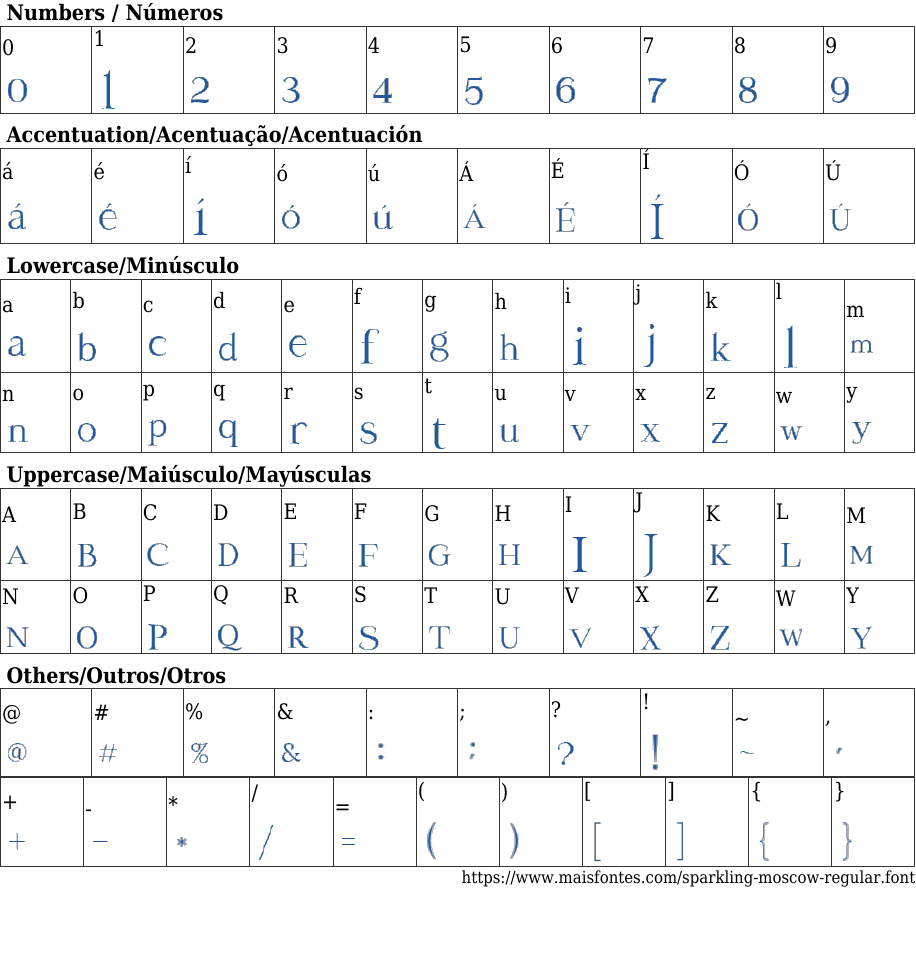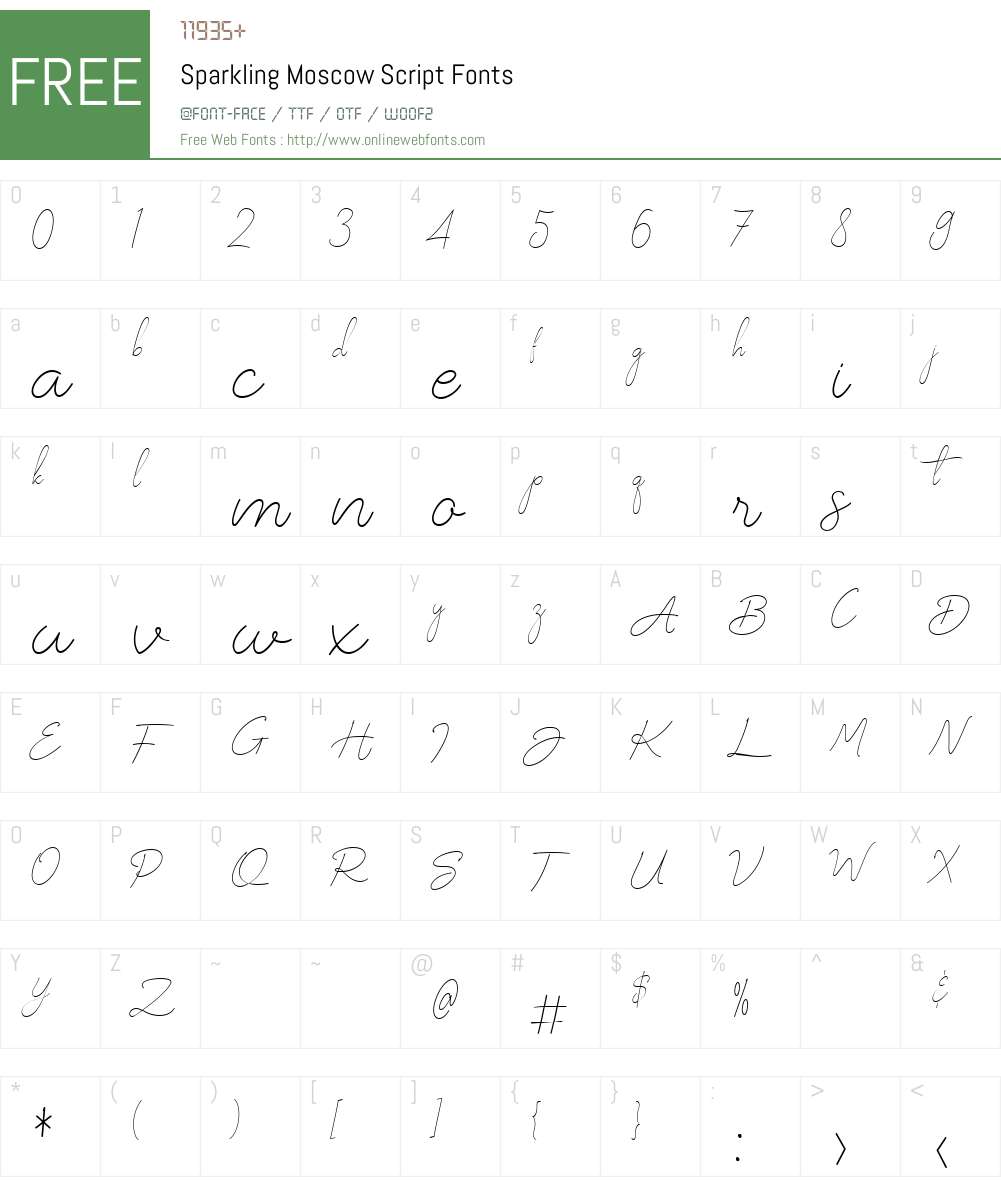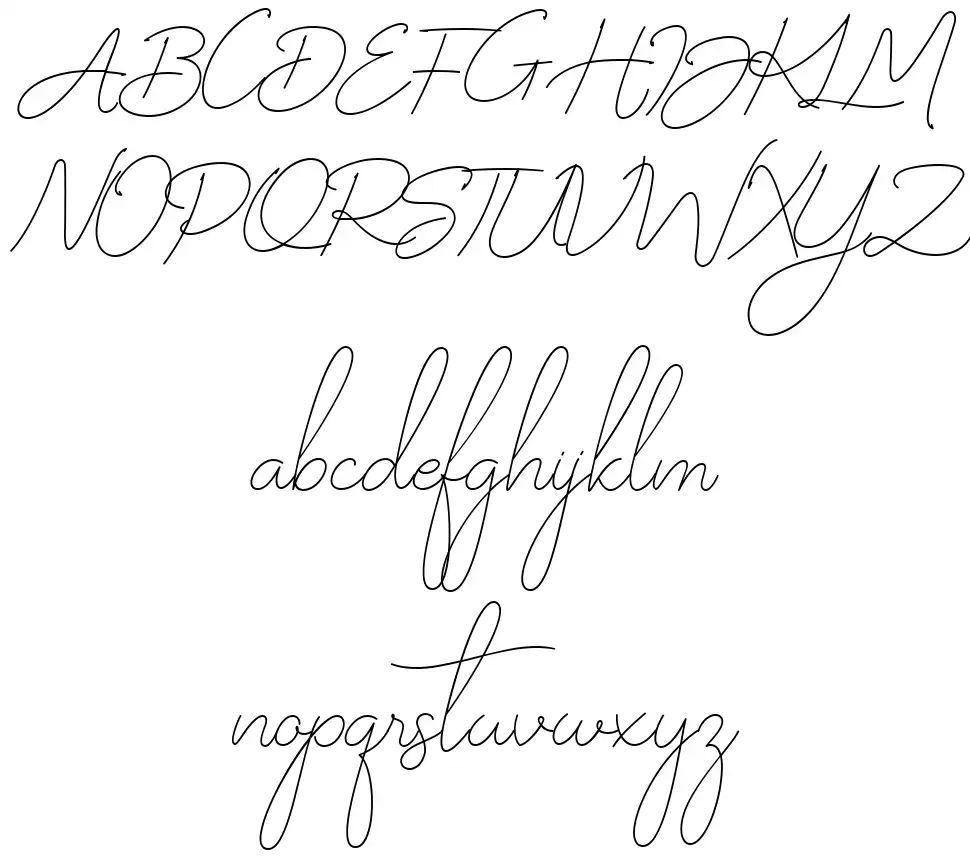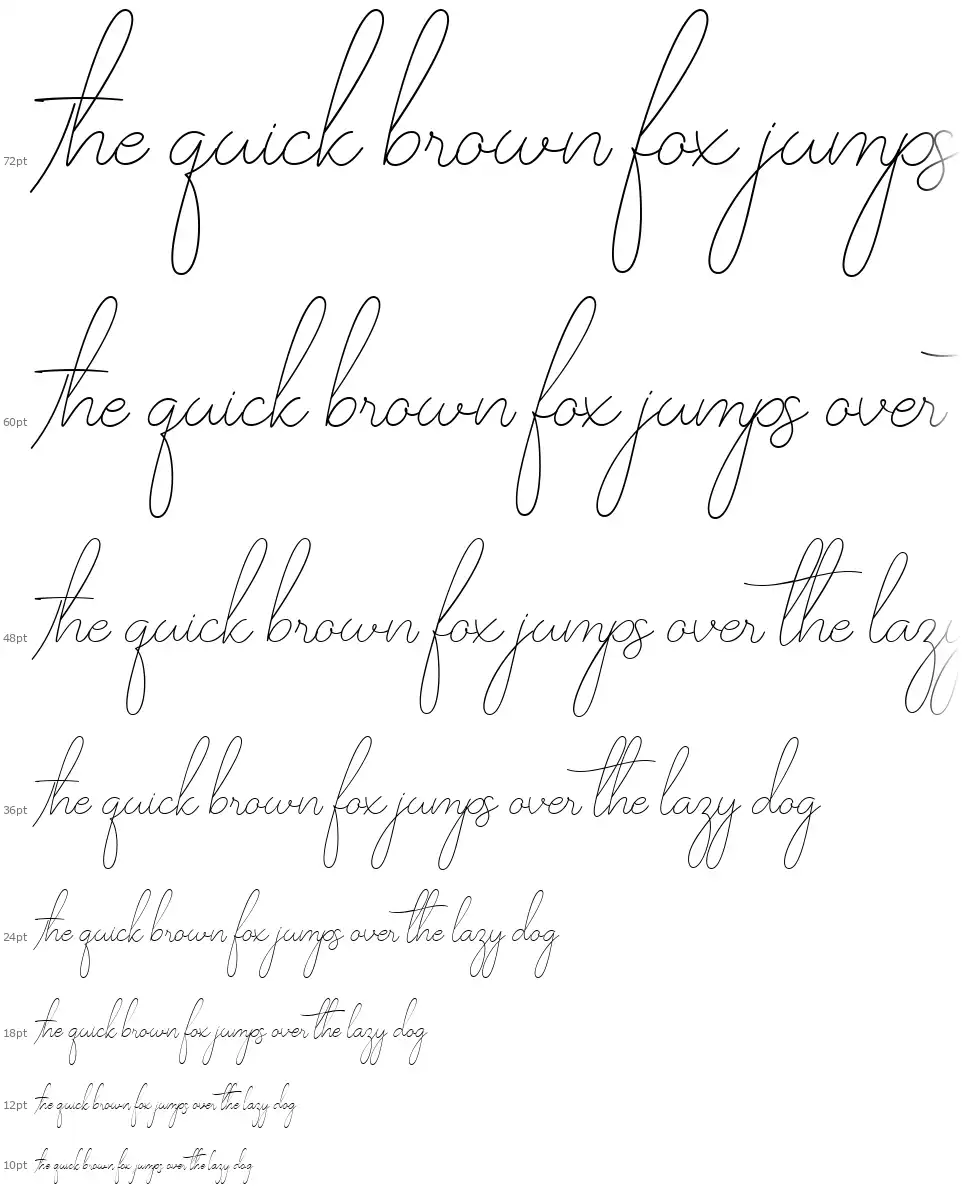
Sparkling Moscow Font . This font is for personal use only!. Click here to create a custom image with your own text. download sparkling moscow font · free for personal use · sparkling moscow is a classy font duo best for a. Moreover, you can embed it to your. sparkling moscow font is a elegant font duo combination which is good for a brand, a sign, and any other purpose design. sparkling moscow font. 11,901 downloads (1 yesterday) 100% free. looking for sparkling moscow script font designed by zamroni hamzah? Sparkling moscow font is a serif typeface that is created with elegance and luxury. In the light of this, we. sparkling moscow script | dafont.com english français español deutsch italiano português.
Moreover, you can embed it to your. Sparkling moscow font is a serif typeface that is created with elegance and luxury. download sparkling moscow font · free for personal use · sparkling moscow is a classy font duo best for a. This font is for personal use only!. sparkling moscow font. sparkling moscow font is a elegant font duo combination which is good for a brand, a sign, and any other purpose design. Click here to create a custom image with your own text. sparkling moscow script | dafont.com english français español deutsch italiano português. In the light of this, we. 11,901 downloads (1 yesterday) 100% free.
Sparkling Moscow Font sparkling moscow font is a elegant font duo combination which is good for a brand, a sign, and any other purpose design. sparkling moscow script | dafont.com english français español deutsch italiano português. Click here to create a custom image with your own text. looking for sparkling moscow script font designed by zamroni hamzah? Moreover, you can embed it to your. Sparkling moscow font is a serif typeface that is created with elegance and luxury. sparkling moscow font. sparkling moscow font is a elegant font duo combination which is good for a brand, a sign, and any other purpose design. 11,901 downloads (1 yesterday) 100% free. download sparkling moscow font · free for personal use · sparkling moscow is a classy font duo best for a. In the light of this, we. This font is for personal use only!.
Sparkling Moscow Script Font Sparkling Moscow Font Click here to create a custom image with your own text. Moreover, you can embed it to your. download sparkling moscow font · free for personal use · sparkling moscow is a classy font duo best for a. sparkling moscow script | dafont.com english français español deutsch italiano português. looking for sparkling moscow script font designed by. Sparkling Moscow Font.
Sparkling Moscow Font Download Free for Desktop & font Sparkling Moscow Font 11,901 downloads (1 yesterday) 100% free. Moreover, you can embed it to your. looking for sparkling moscow script font designed by zamroni hamzah? In the light of this, we. This font is for personal use only!. sparkling moscow font is a elegant font duo combination which is good for a brand, a sign, and any other purpose. Sparkling Moscow Font.
Sparkling Moscow Font Duo Sensatype Studio Sparkling Moscow Font sparkling moscow script | dafont.com english français español deutsch italiano português. Sparkling moscow font is a serif typeface that is created with elegance and luxury. looking for sparkling moscow script font designed by zamroni hamzah? 11,901 downloads (1 yesterday) 100% free. Click here to create a custom image with your own text. sparkling moscow font. . Sparkling Moscow Font.
Sparkling Moscow Font Duo Sensatype Studio Sparkling Moscow Font sparkling moscow script | dafont.com english français español deutsch italiano português. In the light of this, we. This font is for personal use only!. 11,901 downloads (1 yesterday) 100% free. download sparkling moscow font · free for personal use · sparkling moscow is a classy font duo best for a. Moreover, you can embed it to your.. Sparkling Moscow Font.
Sparkling Moscow Font Duo (423098) Display Font Bundles Sparkling Moscow Font download sparkling moscow font · free for personal use · sparkling moscow is a classy font duo best for a. Click here to create a custom image with your own text. This font is for personal use only!. looking for sparkling moscow script font designed by zamroni hamzah? Sparkling moscow font is a serif typeface that is created. Sparkling Moscow Font.
Sparkling Moscow Script Font Vectordad Sparkling Moscow Font sparkling moscow font is a elegant font duo combination which is good for a brand, a sign, and any other purpose design. Moreover, you can embed it to your. This font is for personal use only!. In the light of this, we. Click here to create a custom image with your own text. sparkling moscow font. sparkling. Sparkling Moscow Font.
Download free Sparkling Moscow Script Regular font Sparkling Moscow Font This font is for personal use only!. looking for sparkling moscow script font designed by zamroni hamzah? sparkling moscow font. In the light of this, we. Moreover, you can embed it to your. Click here to create a custom image with your own text. sparkling moscow script | dafont.com english français español deutsch italiano português. 11,901. Sparkling Moscow Font.
Sparkling Moscow Font Duo (423098) Display Font Bundles Sparkling Moscow Font 11,901 downloads (1 yesterday) 100% free. Sparkling moscow font is a serif typeface that is created with elegance and luxury. sparkling moscow font. Click here to create a custom image with your own text. In the light of this, we. This font is for personal use only!. looking for sparkling moscow script font designed by zamroni hamzah?. Sparkling Moscow Font.
Sparkling Moscow Font Duo Classy Fonts, Im Falling, Serena Williams Sparkling Moscow Font This font is for personal use only!. 11,901 downloads (1 yesterday) 100% free. sparkling moscow font. Click here to create a custom image with your own text. In the light of this, we. looking for sparkling moscow script font designed by zamroni hamzah? Sparkling moscow font is a serif typeface that is created with elegance and luxury.. Sparkling Moscow Font.